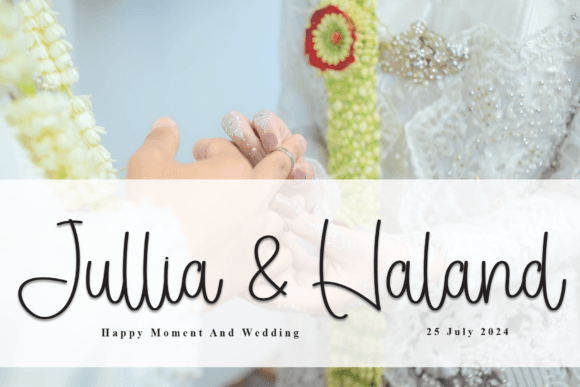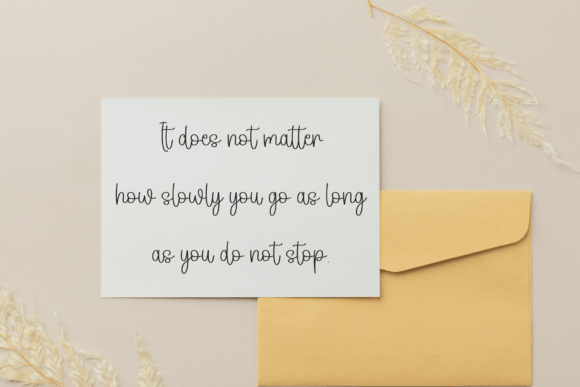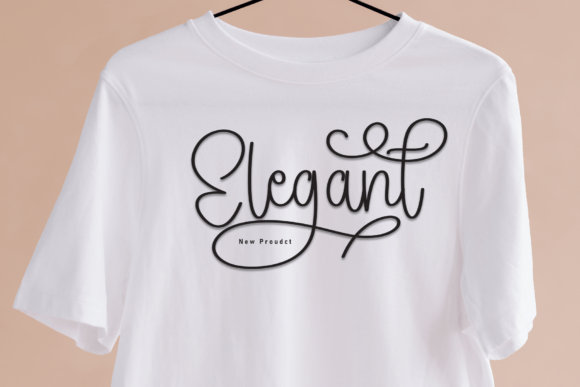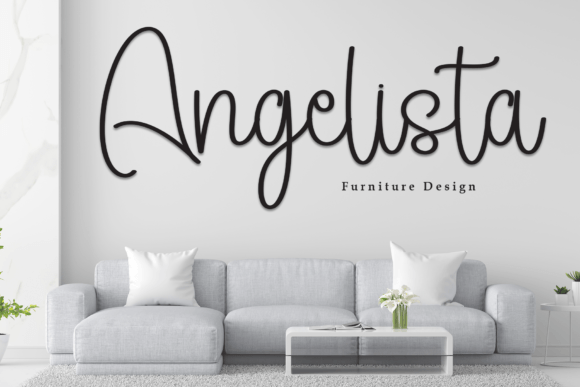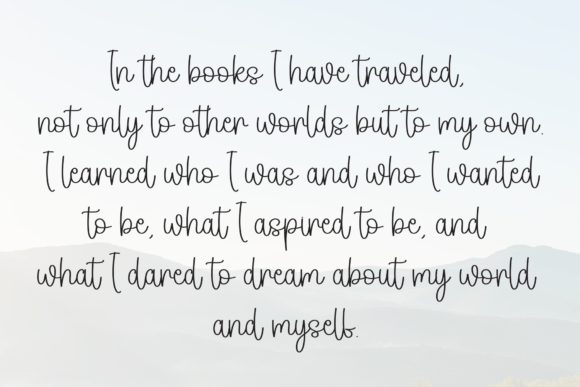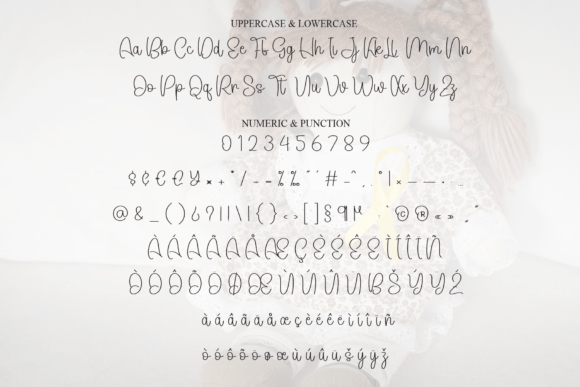
Babydoll Font: Elevate Your Designs with Elegance and Charm
In the world of typography, few fonts manage to capture the essence of elegance and charm as effortlessly as the Babydoll Font. This stylish handwritten script font has been making waves in the design community, and for good reason. Its flowing, graceful curves and delicate strokes bring a level of sophistication and warmth to any project, making it a go-to choice for designers and crafters alike.
The Allure of Babydoll Font
Babydoll Font is more than just a collection of letters; it’s an expression of style and creativity. Its unique, handwritten script exudes a sense of luxury and refinement, perfect for projects that demand a high level of elegance. Whether you’re designing invitations, logos, or branding materials, Babydoll Font adds a personal touch that sets your work apart from the rest.
Key Features of Babydoll Font
- Flowing, Graceful Curves: The font’s smooth, connected letters create a sense of fluidity, making it perfect for designs that require a touch of sophistication.
- Delicate Strokes: The subtle variations in line width add depth and character to the font, giving it a distinctly handmade feel.
- Elegant and Versatile: Babydoll Font is suitable for a wide range of design applications, from formal invitations to logos and branding materials.
As a designer or crafter, you’re constantly on the lookout for fonts that can help you create unique and captivating designs. Babydoll Font is an excellent addition to your typographic arsenal, offering a level of elegance and charm that’s hard to find in other fonts. Here are just a few ways you can use Babydoll Font to elevate your designs:
Invitations and Stationery
Create beautiful, one-of-a-kind invitations for weddings, baby showers, and other special occasions. The flowing curves and delicate strokes of Babydoll Font make it perfect for formal and informal events alike.
Logos and Branding
Establish your brand’s identity with a custom logo that exudes elegance and sophistication. Babydoll Font is an excellent choice for businesses that want to convey a sense of luxury and refinement.
Digital and Print Materials
From social media graphics to print advertisements, Babydoll Font can be used to create a wide range of design materials. Its versatility and charm make it an excellent choice for any project that requires a touch of elegance.
Tips for Using Babydoll Font
To get the most out of Babydoll Font, here are a few tips to keep in mind:
- Pair with Simple Backgrounds: Let the font be the star of the show by pairing it with simple, uncluttered backgrounds.
- Experiment with Colors: Babydoll Font looks stunning in a range of colors, from soft pastels to rich jewel tones.
- Mix and Match: Combine Babydoll Font with other fonts to create unique and interesting typographic combinations.
Babydoll Font is a true gem in the world of typography. Its elegant, handwritten script and delicate strokes make it perfect for designers and crafters who want to add a touch of sophistication to their work. Whether you’re creating invitations, logos, or branding materials, Babydoll Font is an excellent choice for any project that requires a level of elegance and charm. So why settle for ordinary fonts when you can elevate your designs with the beauty and refinement of Babydoll Font?